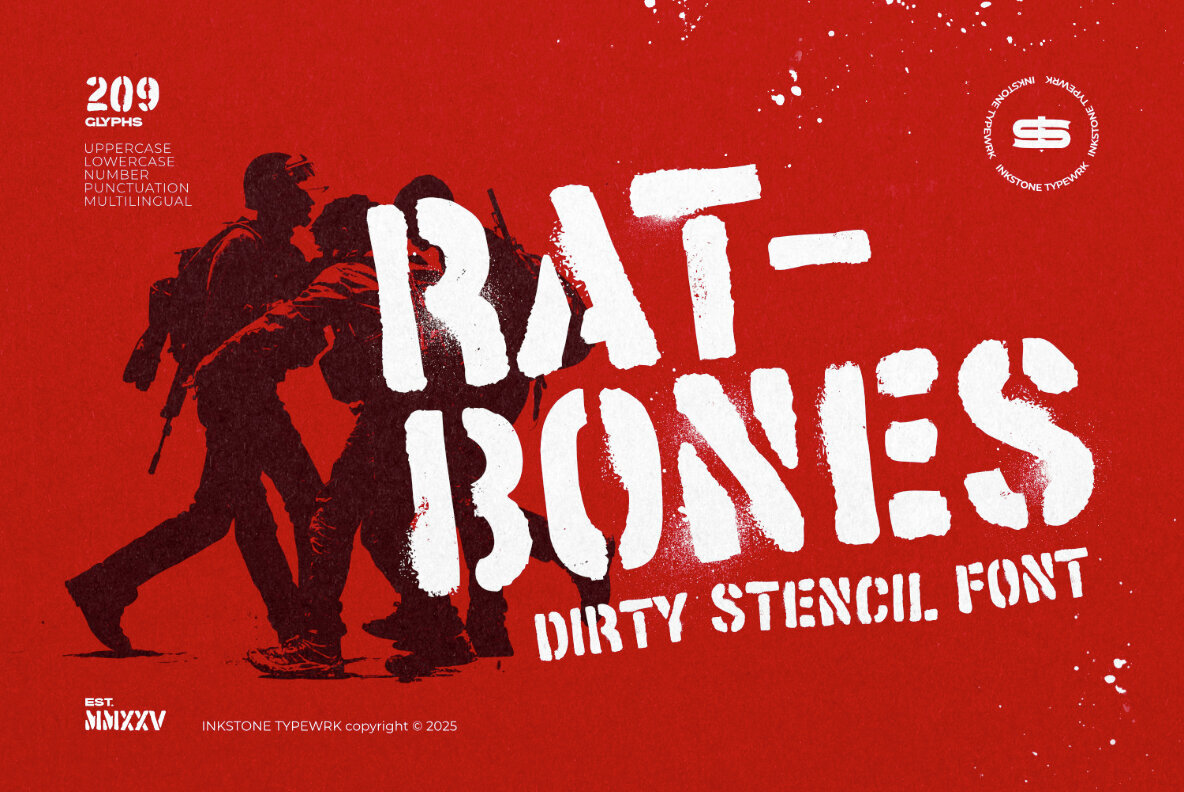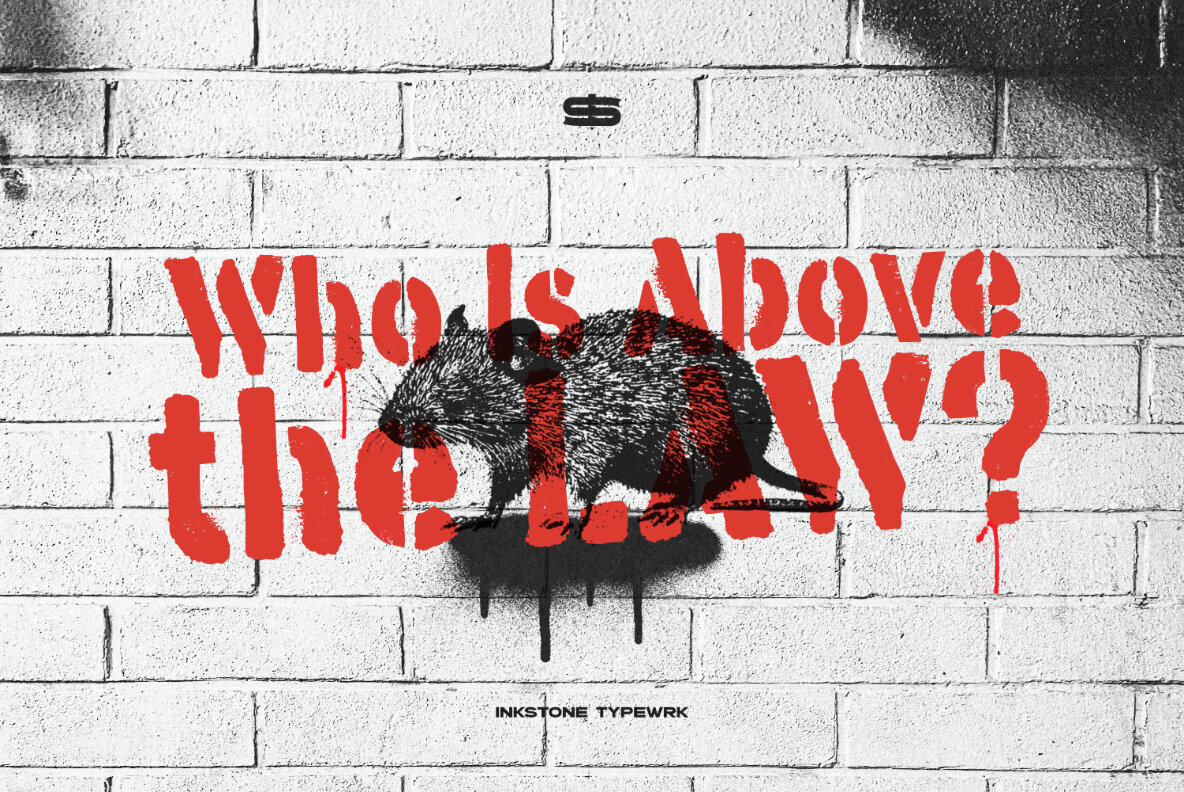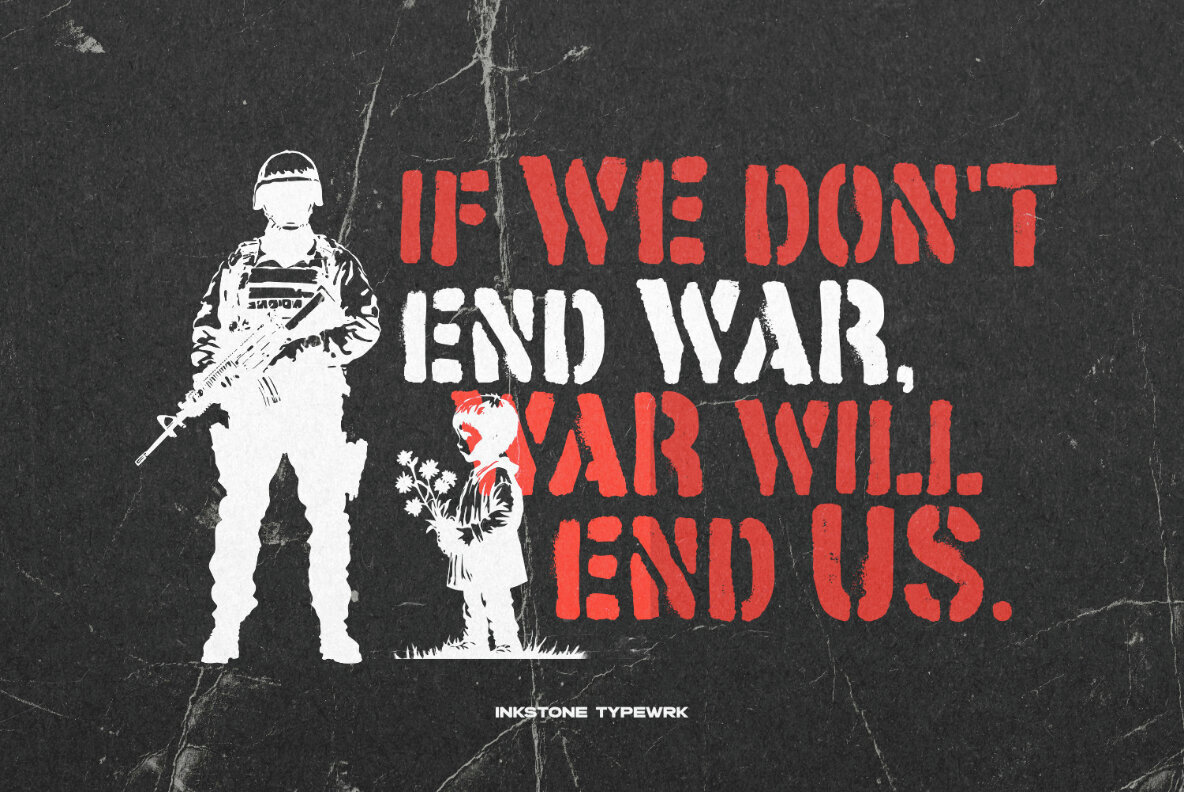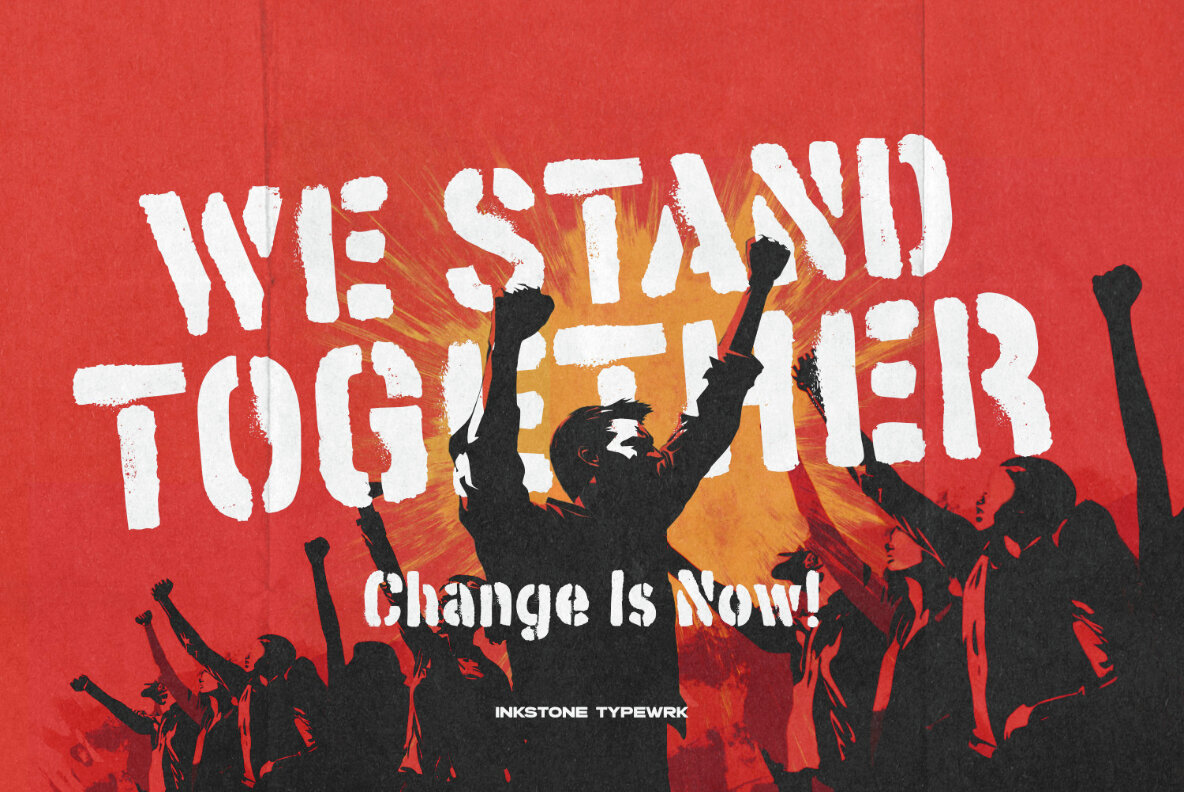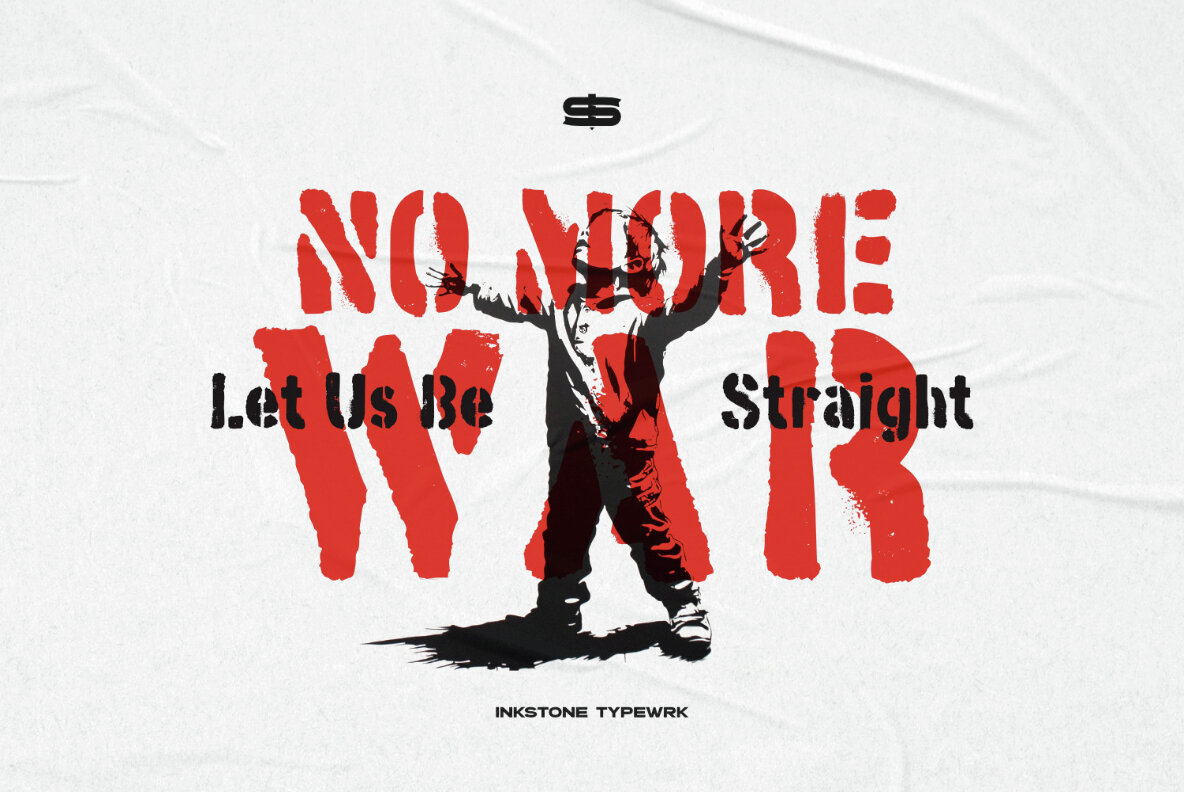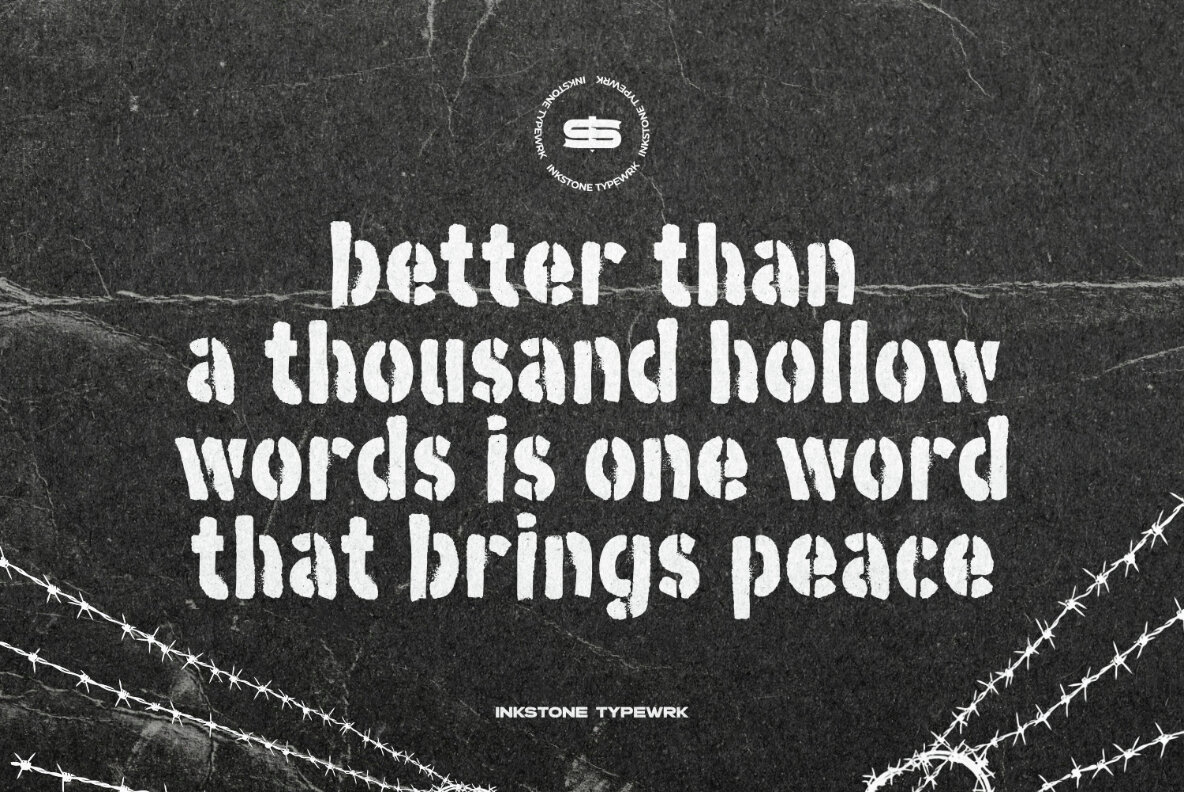
Ratbones Font
Ratbones
Ratbones is a raw and rebellious stencil font that embodies a spray-painted attitude. Drawing inspiration from military-style markings, street art, and DIY aesthetics, it offers a gritty, handmade energy that defies polished conventions. With its rugged edges, organic kerning, and bold cuts, Ratbones is ideal for branding, high-impact posters, apparel, and projects demanding a touch of rebellion. Whether for streetwear, merchandise, or edgy editorial layouts, this font delivers a loud and unapologetically raw presence.Ratbones: Dirty Stencil Font for Impactful Designs